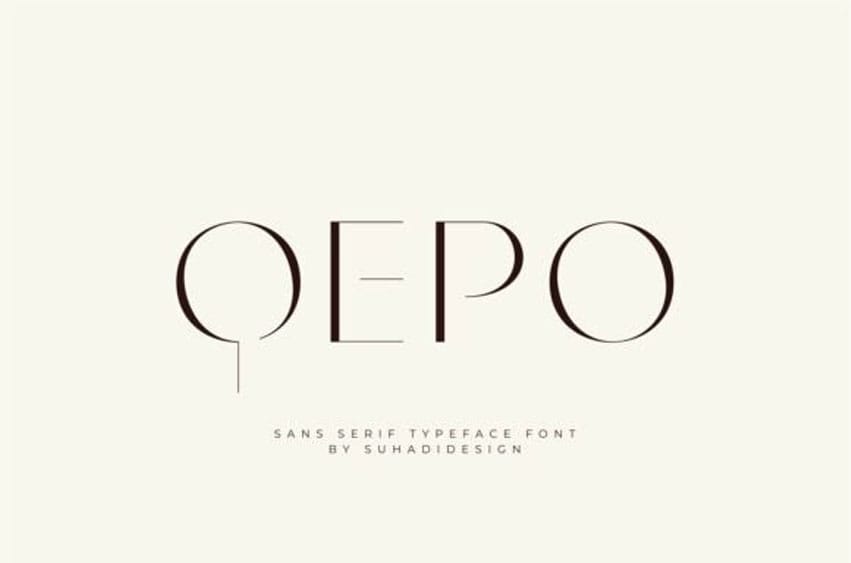
Qepo Font is a sleek and stylish sans serif typeface that brings a refined sense of modernity to your design projects. Characterized by its clean lines, elegant curves, and avant-garde letterforms, this font effortlessly blends sophistication with subtle artistic flair.
With its minimalist aesthetic and high-fashion appeal, QEPO is ideal for branding, editorial layouts, logo design, packaging, and stylish social media content. The unique structure of each glyph adds a distinct personality, while maintaining legibility and balance across applications.